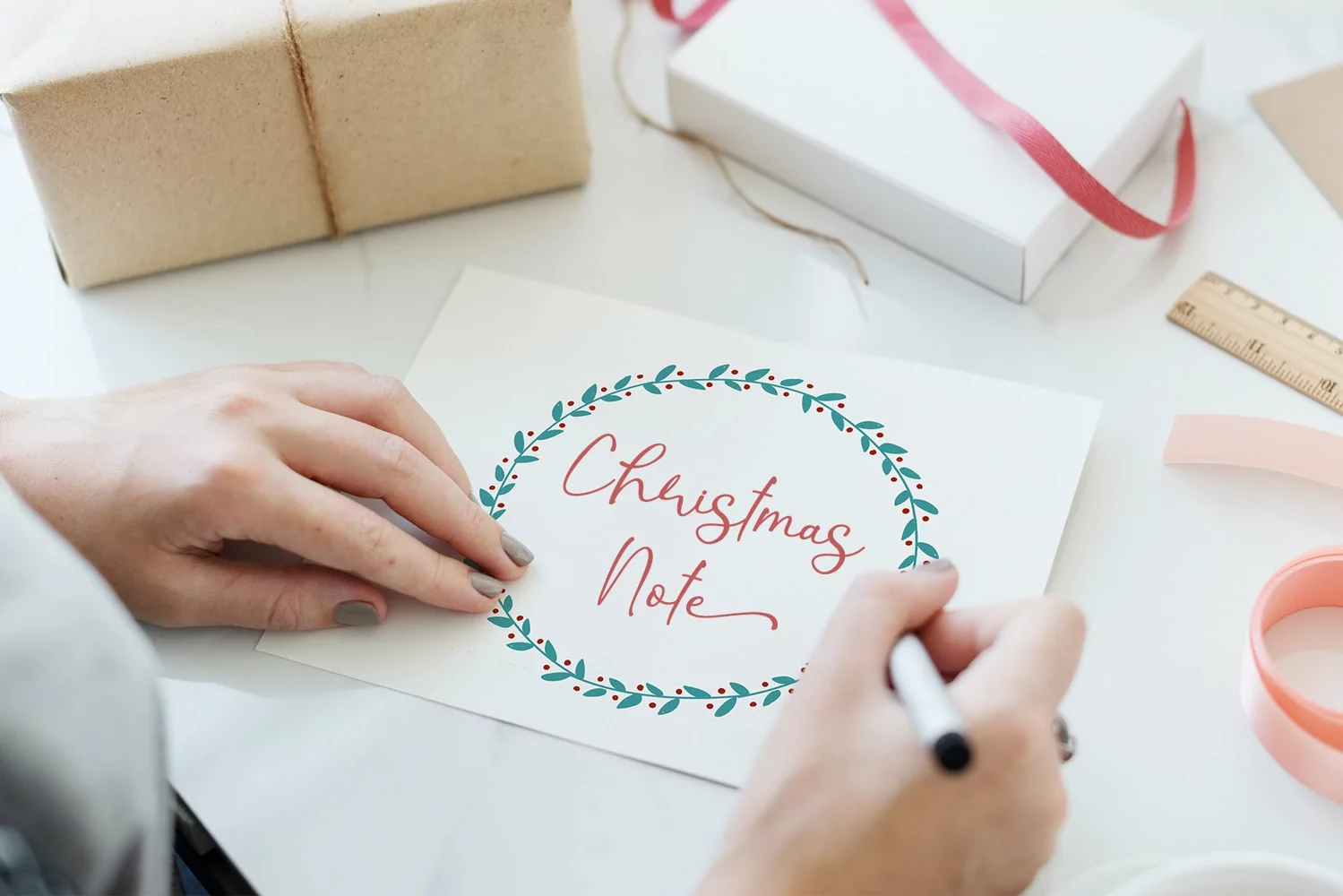
Christmas Shine is a Handwritten style font by Letterafa Studio. It has flowing letters that will give your designs a unique and sweet look. Christmas Shine font is perfect; logos, greeting cards, a package design, a brand identity, craft design, any DIY project, book title, wedding invitation, packaging, and more.